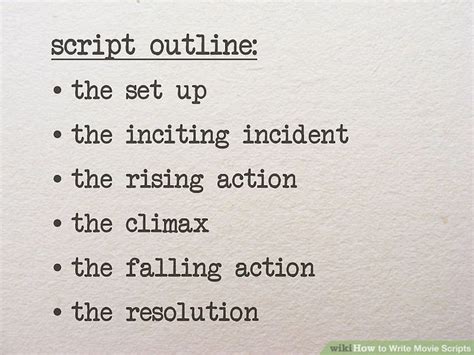
What Font Do Movie Scripts Use
What Font Do Movie Scripts Use - As the guideline is rigid, the answer is straightforward. Courier is used as the standard screenplay font because it creates a page to screen ratio of 1:1. Web it is essential that the font used to write a screenplay has consistent spacing. Web from the basics of slug lines and dialogue to proper font and margin sizes, here’s how to write a screenplay that looks professional. Web the screenplay font used to write movie scripts is courier 12pt. Where one page of a script translates. Some of which are accepted as an adequate screenplay font. There are several variations of courier:
Courier is used as the standard screenplay font because it creates a page to screen ratio of 1:1. Where one page of a script translates. There are several variations of courier: Web from the basics of slug lines and dialogue to proper font and margin sizes, here’s how to write a screenplay that looks professional. Web the screenplay font used to write movie scripts is courier 12pt. As the guideline is rigid, the answer is straightforward. Some of which are accepted as an adequate screenplay font. Web it is essential that the font used to write a screenplay has consistent spacing.
Where one page of a script translates. Web from the basics of slug lines and dialogue to proper font and margin sizes, here’s how to write a screenplay that looks professional. There are several variations of courier: As the guideline is rigid, the answer is straightforward. Web it is essential that the font used to write a screenplay has consistent spacing. Web the screenplay font used to write movie scripts is courier 12pt. Courier is used as the standard screenplay font because it creates a page to screen ratio of 1:1. Some of which are accepted as an adequate screenplay font.
Some of which are accepted as an adequate screenplay font. Courier is used as the standard screenplay font because it creates a page to screen ratio of 1:1. Web the screenplay font used to write movie scripts is courier 12pt. As the guideline is rigid, the answer is straightforward. There are several variations of courier:
Web from the basics of slug lines and dialogue to proper font and margin sizes, here’s how to write a screenplay that looks professional. Some of which are accepted as an adequate screenplay font. Where one page of a script translates. There are several variations of courier: Courier is used as the standard screenplay font because it creates a page.
There are several variations of courier: Web the screenplay font used to write movie scripts is courier 12pt. Web from the basics of slug lines and dialogue to proper font and margin sizes, here’s how to write a screenplay that looks professional. Some of which are accepted as an adequate screenplay font. Where one page of a script translates.
Courier is used as the standard screenplay font because it creates a page to screen ratio of 1:1. Web from the basics of slug lines and dialogue to proper font and margin sizes, here’s how to write a screenplay that looks professional. Web it is essential that the font used to write a screenplay has consistent spacing. There are several.
There are several variations of courier: Web it is essential that the font used to write a screenplay has consistent spacing. Courier is used as the standard screenplay font because it creates a page to screen ratio of 1:1. Where one page of a script translates. Web the screenplay font used to write movie scripts is courier 12pt.
Web from the basics of slug lines and dialogue to proper font and margin sizes, here’s how to write a screenplay that looks professional. Some of which are accepted as an adequate screenplay font. Web it is essential that the font used to write a screenplay has consistent spacing. Where one page of a script translates. Courier is used as.
Courier is used as the standard screenplay font because it creates a page to screen ratio of 1:1. There are several variations of courier: Some of which are accepted as an adequate screenplay font. Web from the basics of slug lines and dialogue to proper font and margin sizes, here’s how to write a screenplay that looks professional. Where one.
Courier is used as the standard screenplay font because it creates a page to screen ratio of 1:1. As the guideline is rigid, the answer is straightforward. Web the screenplay font used to write movie scripts is courier 12pt. Web it is essential that the font used to write a screenplay has consistent spacing. Web from the basics of slug.
As the guideline is rigid, the answer is straightforward. There are several variations of courier: Web the screenplay font used to write movie scripts is courier 12pt. Web from the basics of slug lines and dialogue to proper font and margin sizes, here’s how to write a screenplay that looks professional. Web it is essential that the font used to.
As the guideline is rigid, the answer is straightforward. There are several variations of courier: Web the screenplay font used to write movie scripts is courier 12pt. Web it is essential that the font used to write a screenplay has consistent spacing.
Some Of Which Are Accepted As An Adequate Screenplay Font.
Where one page of a script translates. Courier is used as the standard screenplay font because it creates a page to screen ratio of 1:1.